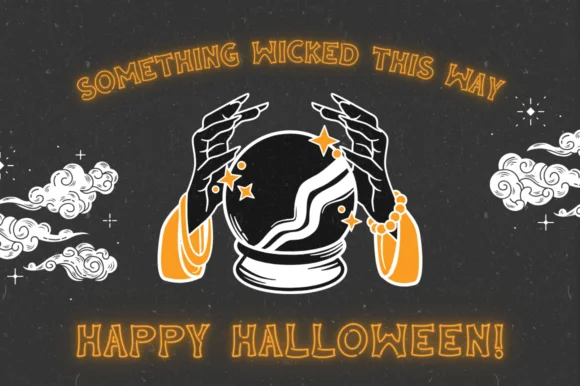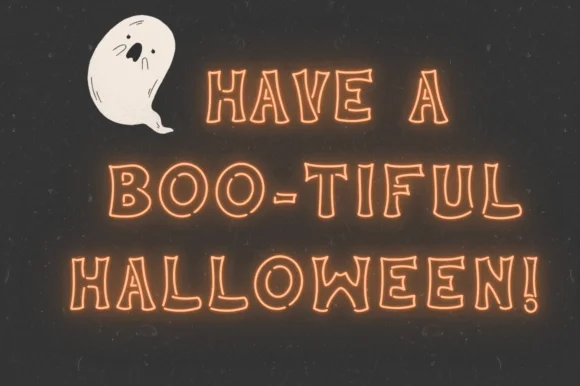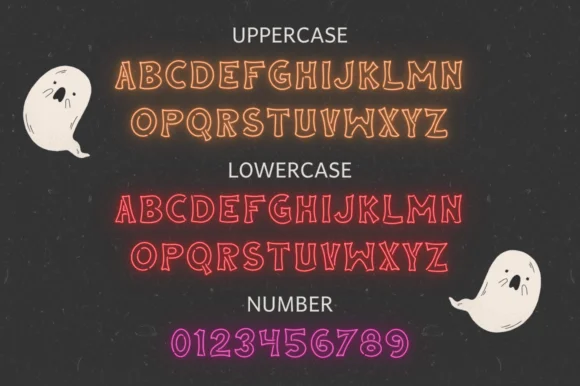
Neon Halloween Font
This electrifying font is perfect for neon Halloween displays, electric horror events, glowing Halloween parties, cyberpunk spooky celebrations, neon-lit haunted attractions, electric Halloween marketing, glowing horror branding, futuristic Halloween decorations, electronic terror displays, and brilliantly illuminated Halloween messaging materials.
Neon Halloween Font is exciting because it electrifies traditional Halloween terror with the pulsating energy and hypnotic glow of neon lighting through its brilliantly crafted letterforms that seem to buzz with electric current and supernatural energy. The font features sharp, angular characters with neon proportions and electric details that evoke the spine-tingling atmosphere of Halloween celebrations illuminated by crackling neon signs and glowing electric displays, incorporating lightning-like flourishes and electric elements that create typography as mesmerizing and energetic as neon tubes casting eerie colored light across darkened streets. Each letter showcases the modern intensity and electric excitement that makes neon Halloween themes so visually striking and memorably futuristic, with glowing curves and electric accents that transform ordinary text into high-voltage expressions of contemporary terror that capture the fascinating intersection of traditional Halloween fear and modern electric aesthetics.
The Neon Halloween Font family includes electric style variations: Regular, Bold, Light, Glowing, and Electric versions. The collection features special neon elements including electric accents, glowing flourishes, lightning details, and illuminated ornaments. Additional components include neon borders, electric frames, glowing decorations, and brilliantly electrifying ornamental designs that enhance the font's neon Halloween appeal and create cohesive electric horror themes.
Event lighting designers and modern horror enthusiasts will find Neon Halloween Font to be an exceptional resource for creating electrifyingly contemporary Halloween communications that celebrate the mesmerizing power and hypnotic beauty of neon-illuminated horror experiences. This electrically crafted font transforms ordinary Halloween messaging into high-voltage expressions that resonate with audiences who appreciate the striking visual impact and modern intensity that make neon Halloween themes such compelling elements of contemporary horror and futuristic supernatural entertainment.
The typeface includes comprehensive character support with electric styling that maintains excellent readability while conveying the brilliant intensity and neon atmosphere of electrified Halloween celebrations. The font's glowing design ensures brilliantly striking results across both digital neon applications and electric Halloween productions.
Perfect for modern Halloween events, electric horror celebrations, neon-themed parties, and brilliantly illuminated seasonal marketing, this font delivers electrifyingly striking visual impact that communicates modern intensity, electric energy, and the hypnotically brilliant atmosphere that makes neon Halloween such a visually stunning and memorably electrifying celebration of contemporary horror.